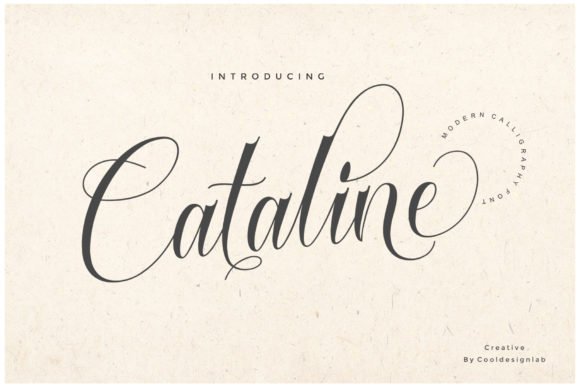
The Perfect Brushstroke: Discover the Allure of Cataline Script Font
Do you remember that moment when you finally found the perfect brushstroke to elevate your design? For many creatives, it’s a moment of pure joy and excitement. It’s a spark that ignites the imagination and sets the tone for a beautiful project. For designers seeking to add a touch of elegance and sophistication to their work, that moment often comes in the form of the Cataline Script Font.
With its modern style and decorative characters, the Cataline Script Font is a versatile tool that can be used for a wide range of projects, from invitations and greeting cards to branding materials and business cards. Its dancing baseline adds a playful touch, making it perfect for quotes, posters, and more. For designers, the Cataline Script Font is a valuable asset that can help bring their vision to life with ease and precision.
Cataline Script Font Key Features
- Font Family: A beautiful script font with elegant and refined feel, ideal for titles, headings and quotes.
- Unique Characteristics: Distinctive letterforms, flowing connections, and subtle flair, giving it a sophisticated and luxurious feel.
Cataline Script Font Review
I recently had the chance to work with the Cataline Script Font, and I’m excited to share my honest thoughts about this beautiful script font.
- Cataline Script has a very elegant and sophisticated feel to it. It’s perfect for creating a high-end, luxurious look in your designs.
- The font is highly customizable, with many options for adjusting the letter spacing, size, and color. This makes it easy to get the perfect look for your project.
- The font is also highly legible, making it easy to read even at small sizes. This is especially important for body text or headings.
- The font may not be the best choice for projects that require a lot of bold or dramatic text. The script style can sometimes feel a bit delicate.
- The font may not be as versatile as some other script fonts, and may not be suitable for projects that require a lot of creative experimentation.
Overall, I’m very impressed with the Cataline Script Font. While it may have some limitations, it’s a beautiful and elegant font that’s perfect for creating high-end, sophisticated designs. If you’re looking for a font that’s easy to read and customize, I would definitely recommend giving Cataline Script a try.
To get the most out of the Cataline Script font, use it sparingly and in creative ways, such as in headings or titles. Experiment with different font sizes and colors to create visual interest. You can also use the font in combination with other fonts to create a unique look.
The Cataline Script font is perfect for:
- Wedding and event signage
Alternatives to Cataline Script Font
Playfair Display is a luxurious, elegant script font that is perfect for formal invitations, wedding stationery, and high-end branding. It has a more refined and sophisticated look compared to Cataline Script Font, which makes it ideal for projects that require a touch of sophistication.
Comparison: While Cataline Script Font has a more playful and casual feel, Playfair Display is more formal and elegant. Playfair Display is also more versatile and can be used in a variety of contexts, from packaging to advertising.